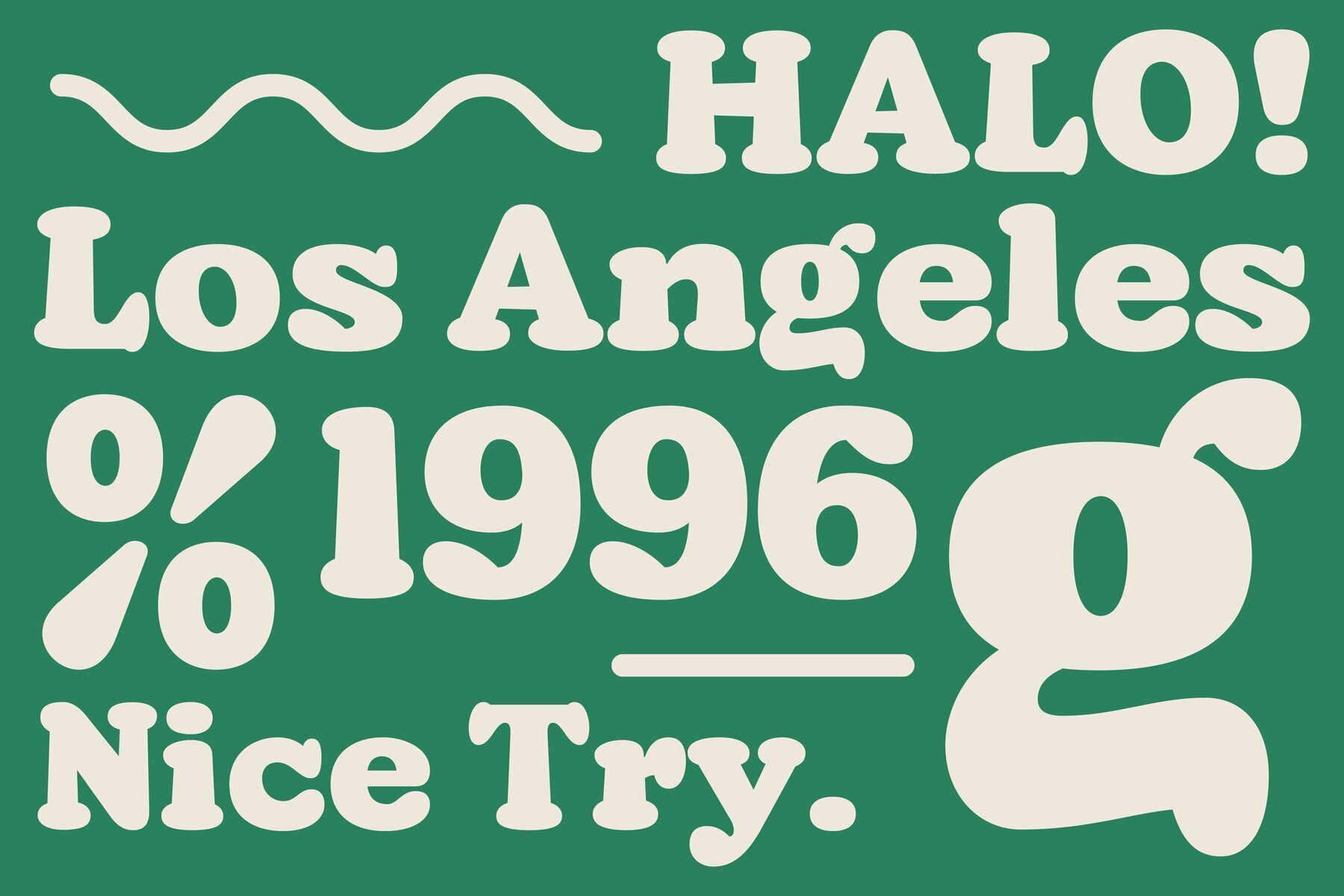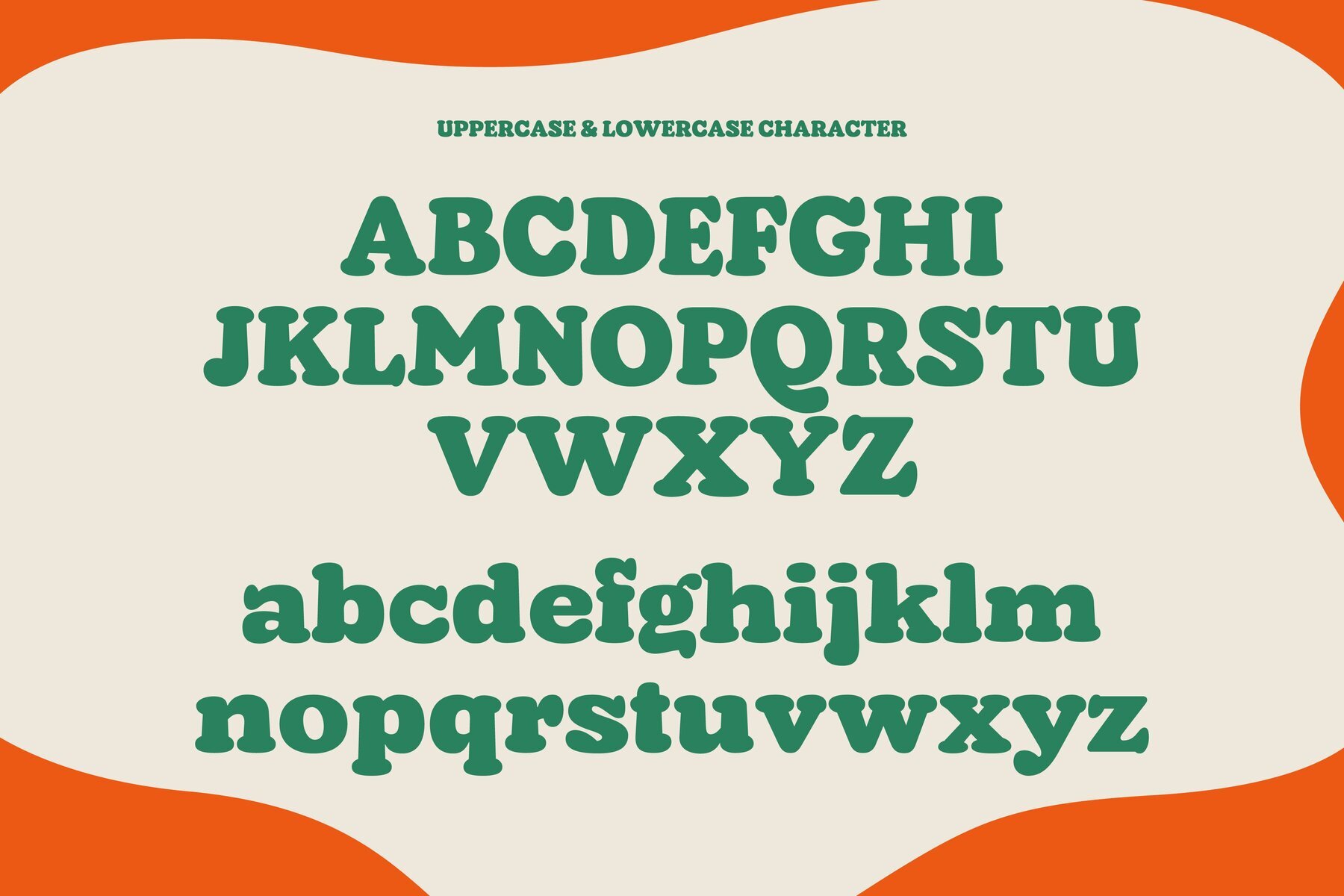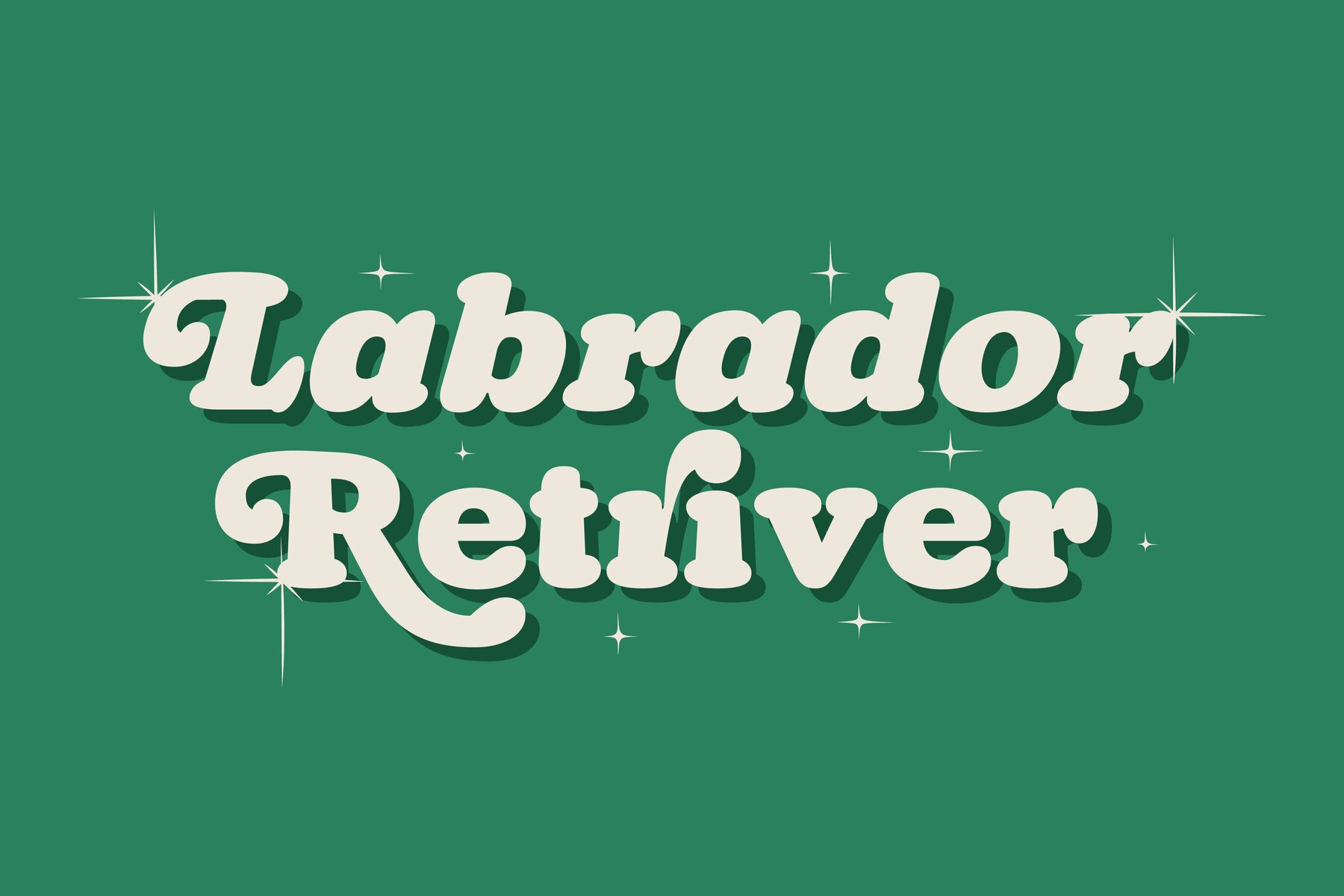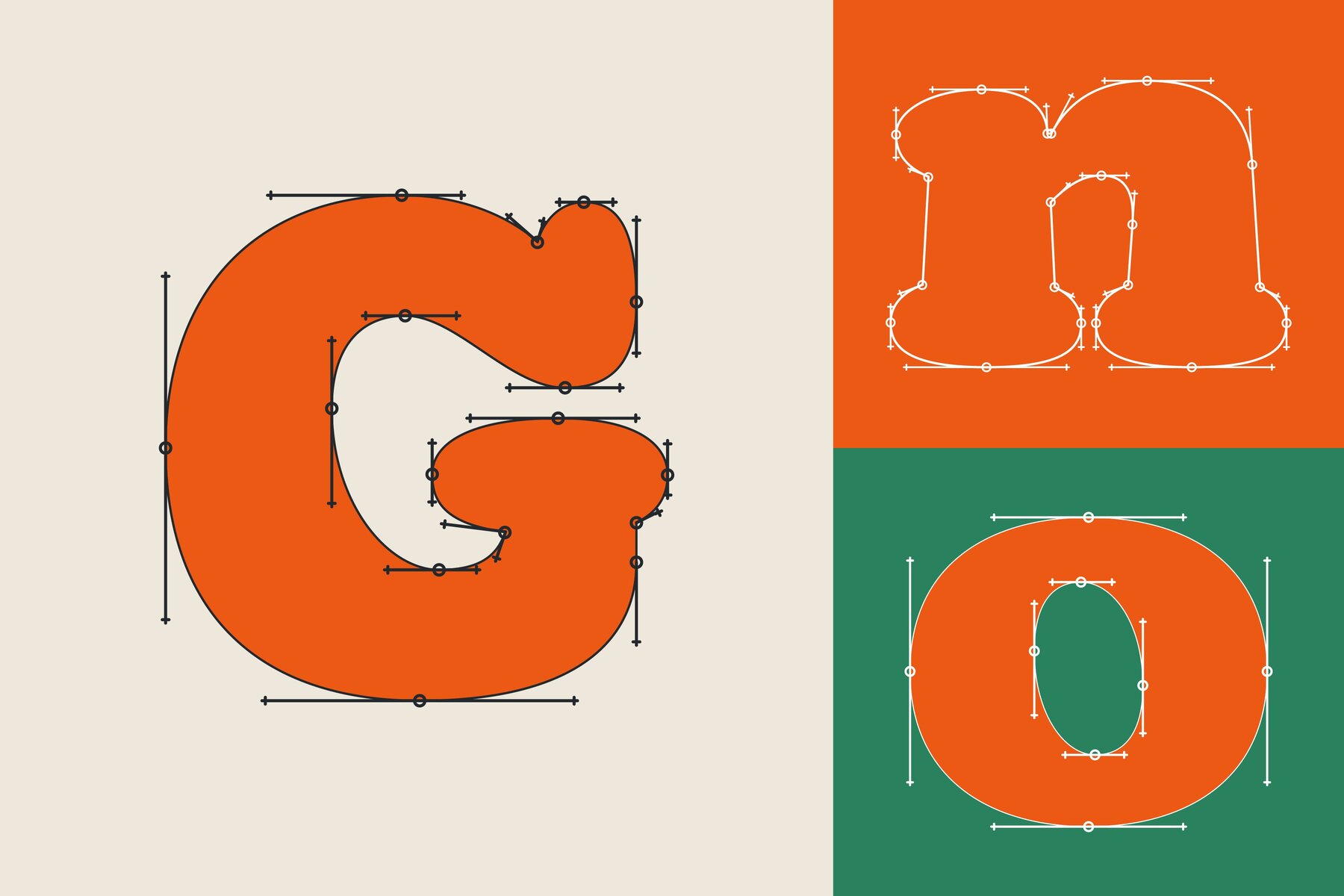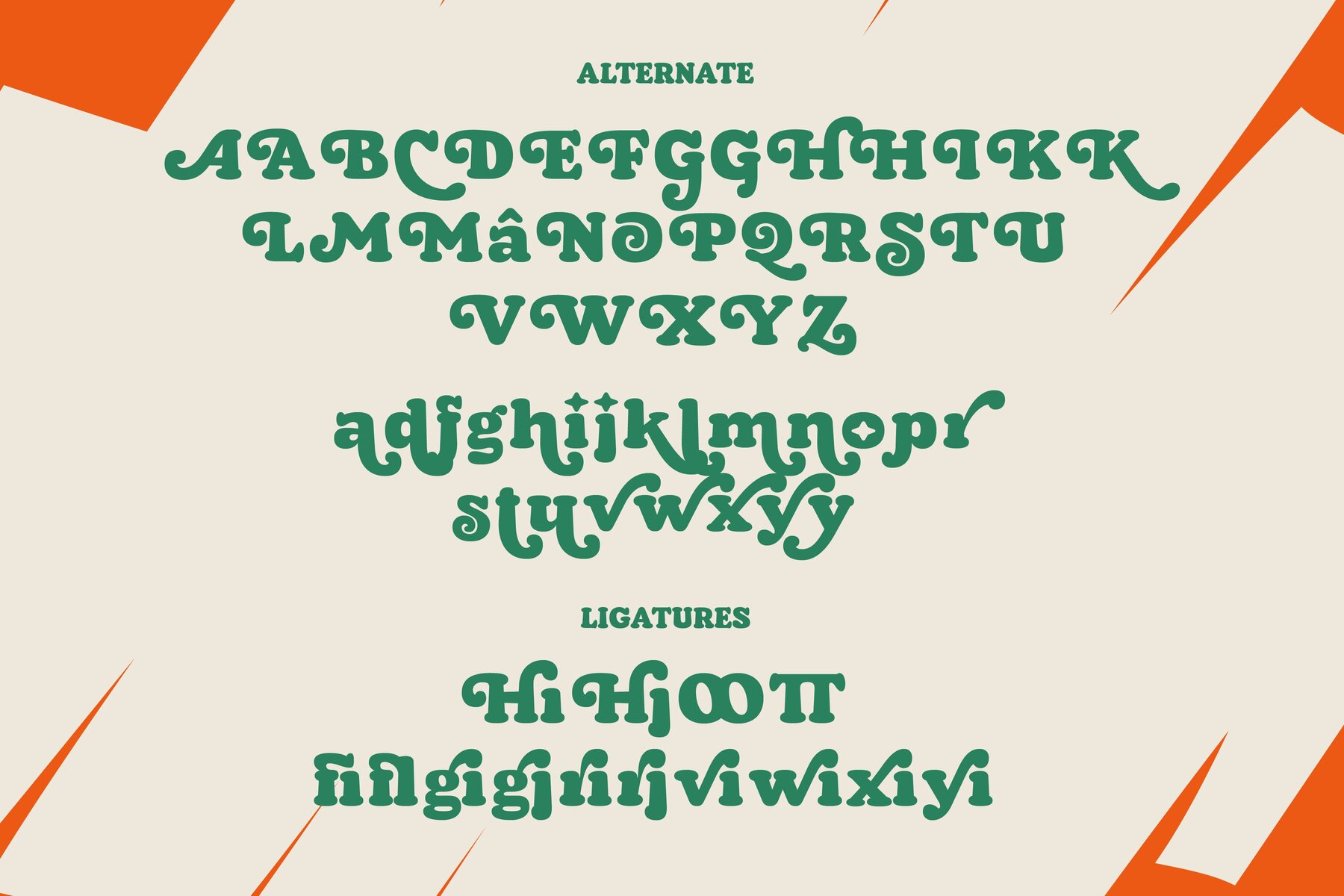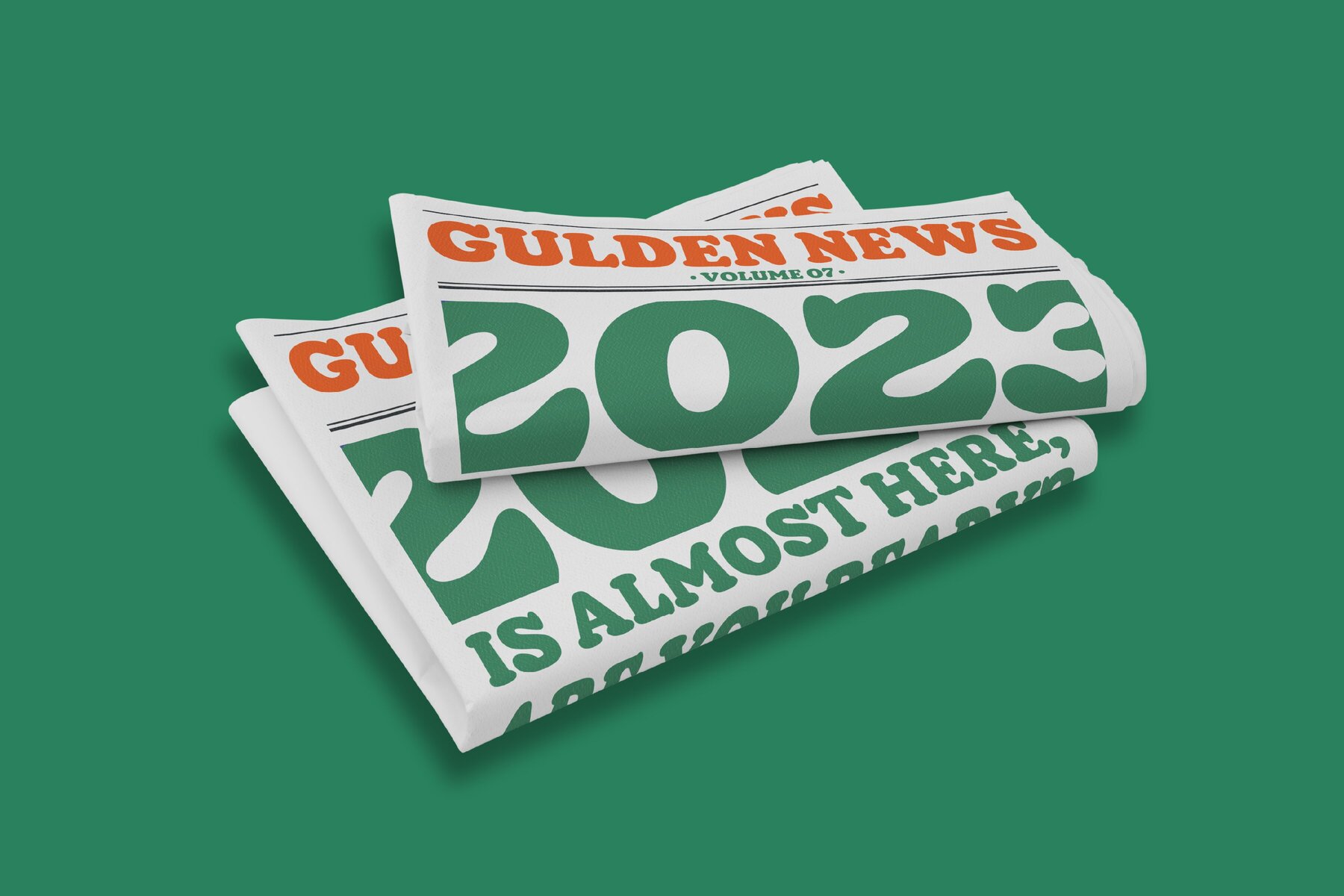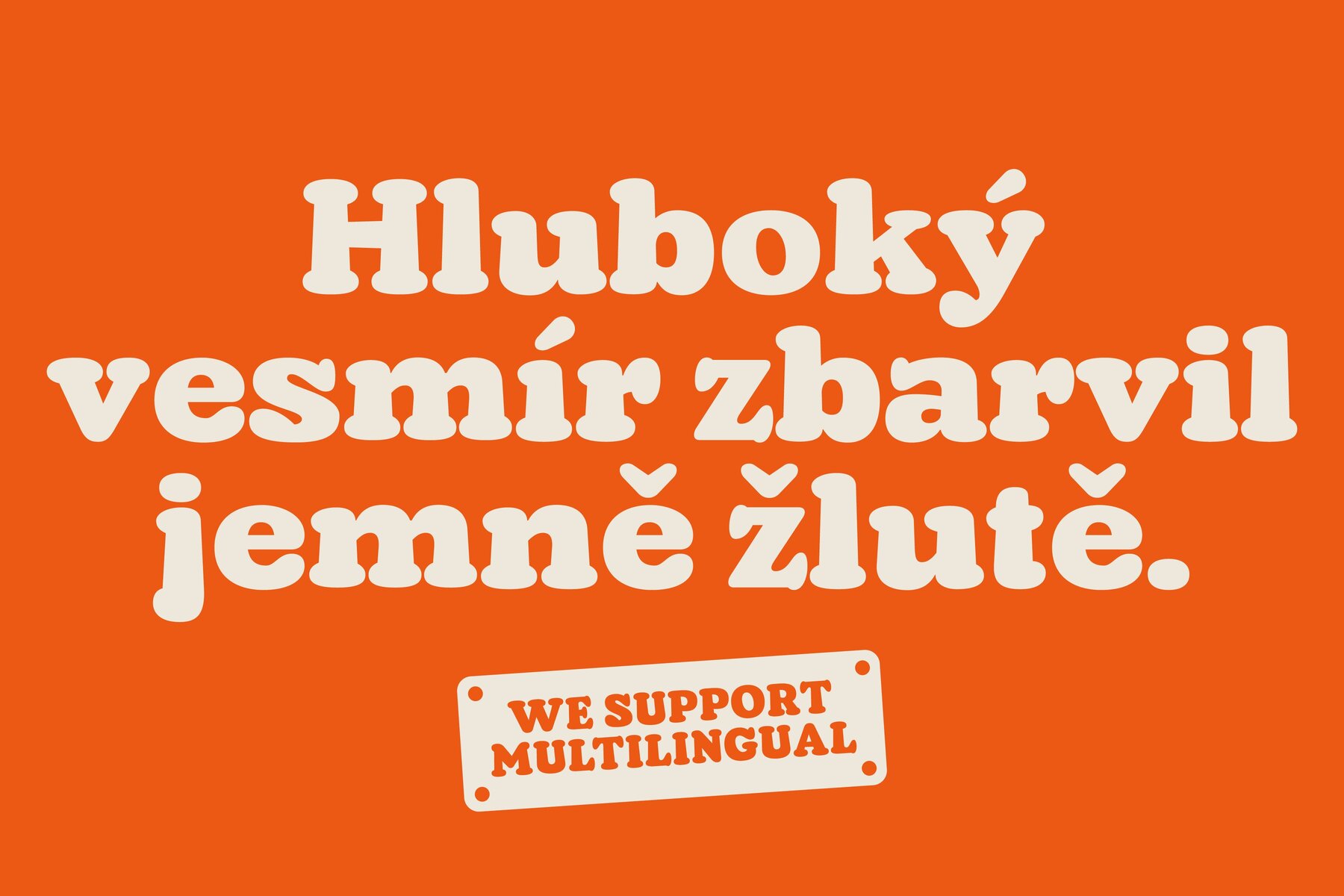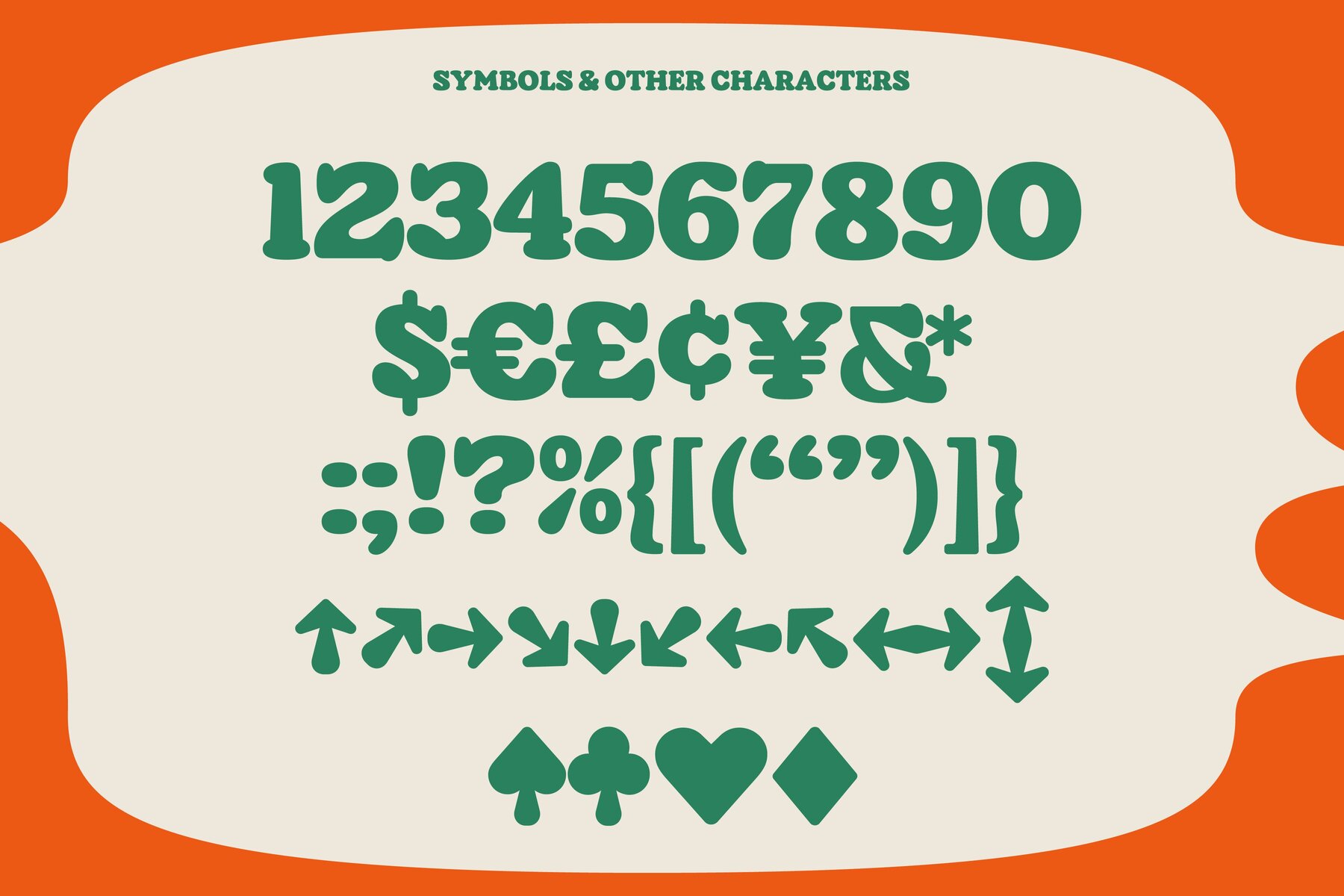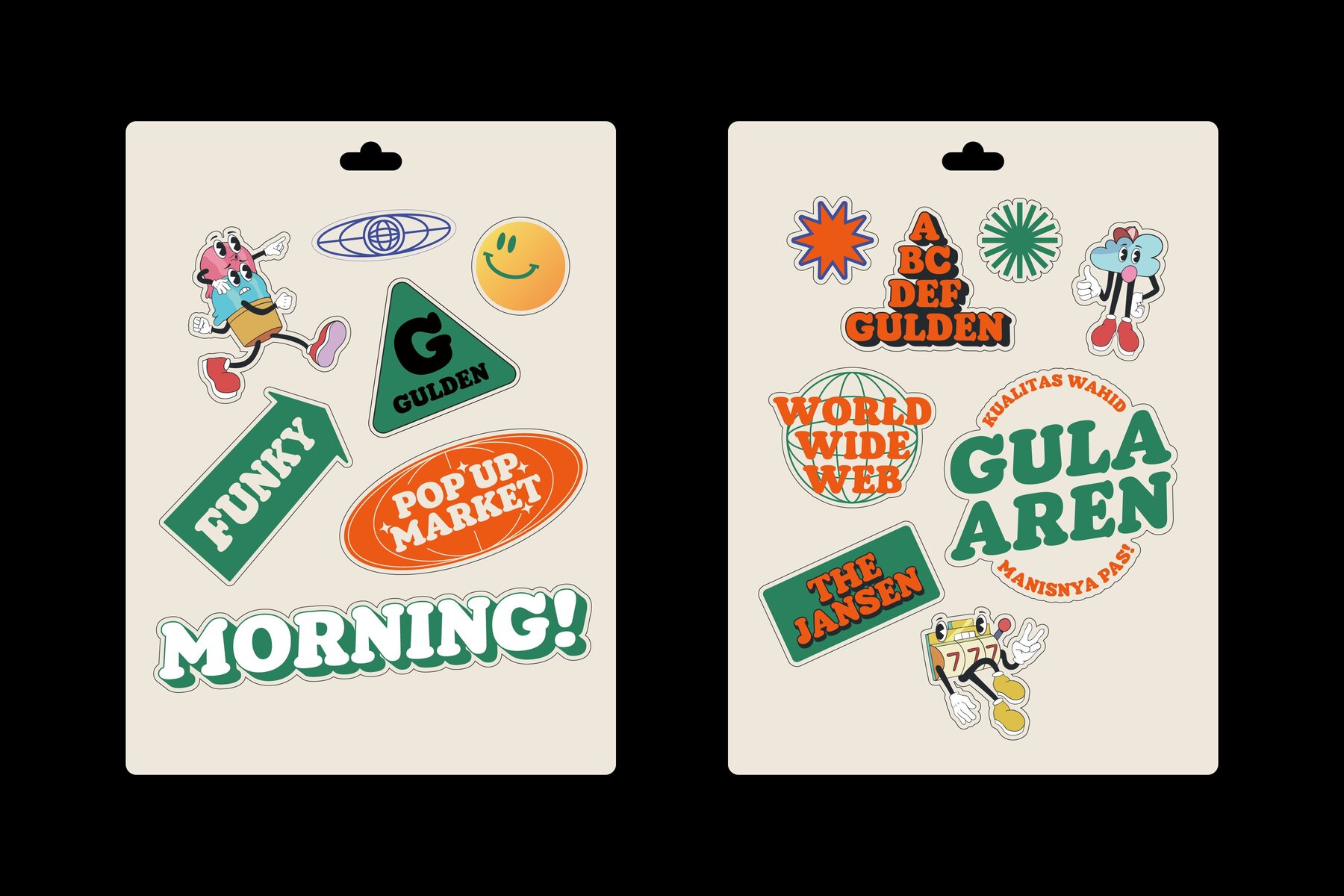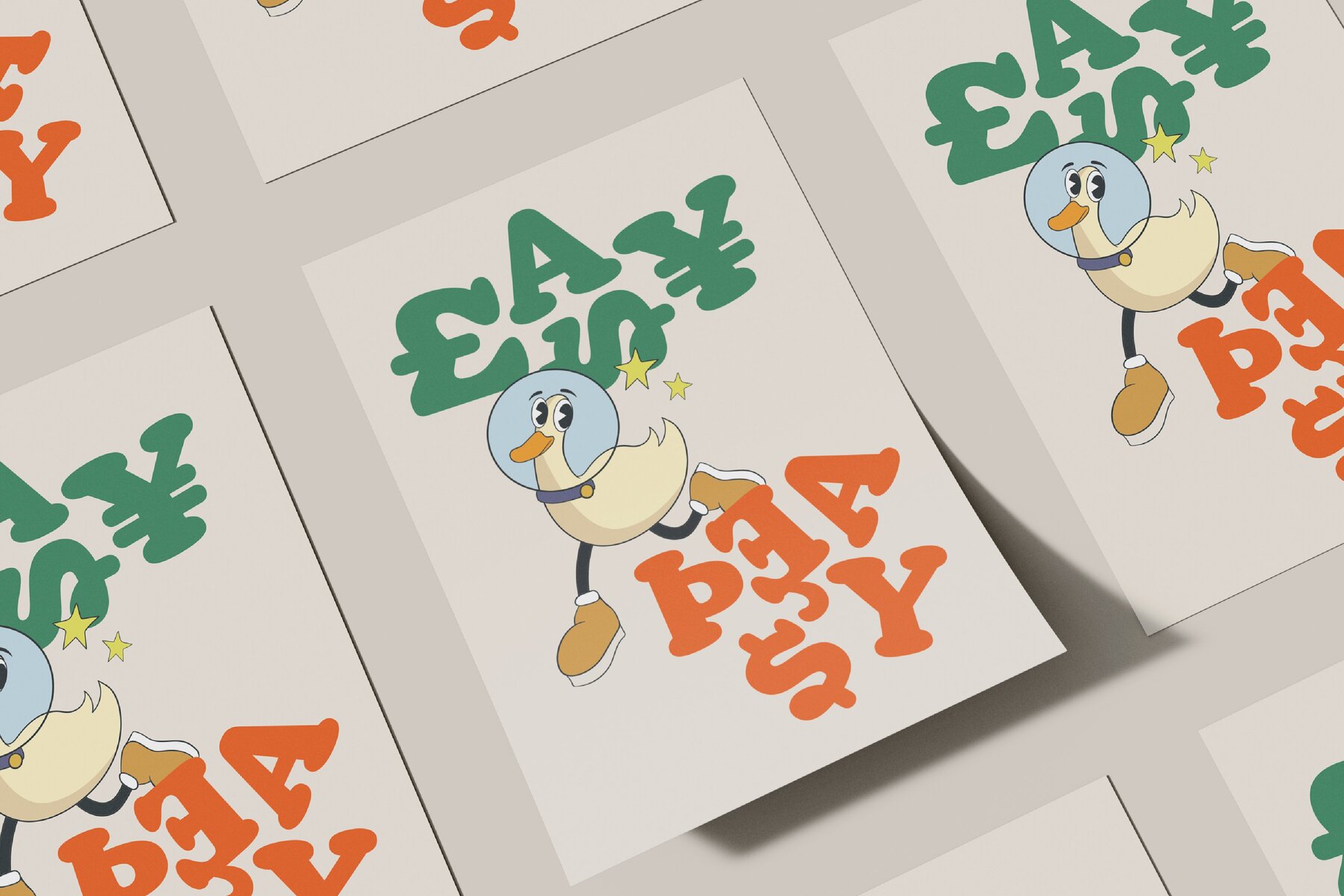
SG Gluper Font
SG Gluper Regular
SG Gluper draws inspiration from the iconic Cooper Black typeface, offering a retro serif solution tailored for display purposes. This font excels in headline creation, branding initiatives, and logo designs, providing a versatile yet bold aesthetic.SG Gluper: Retro-Inspired Display Typeface